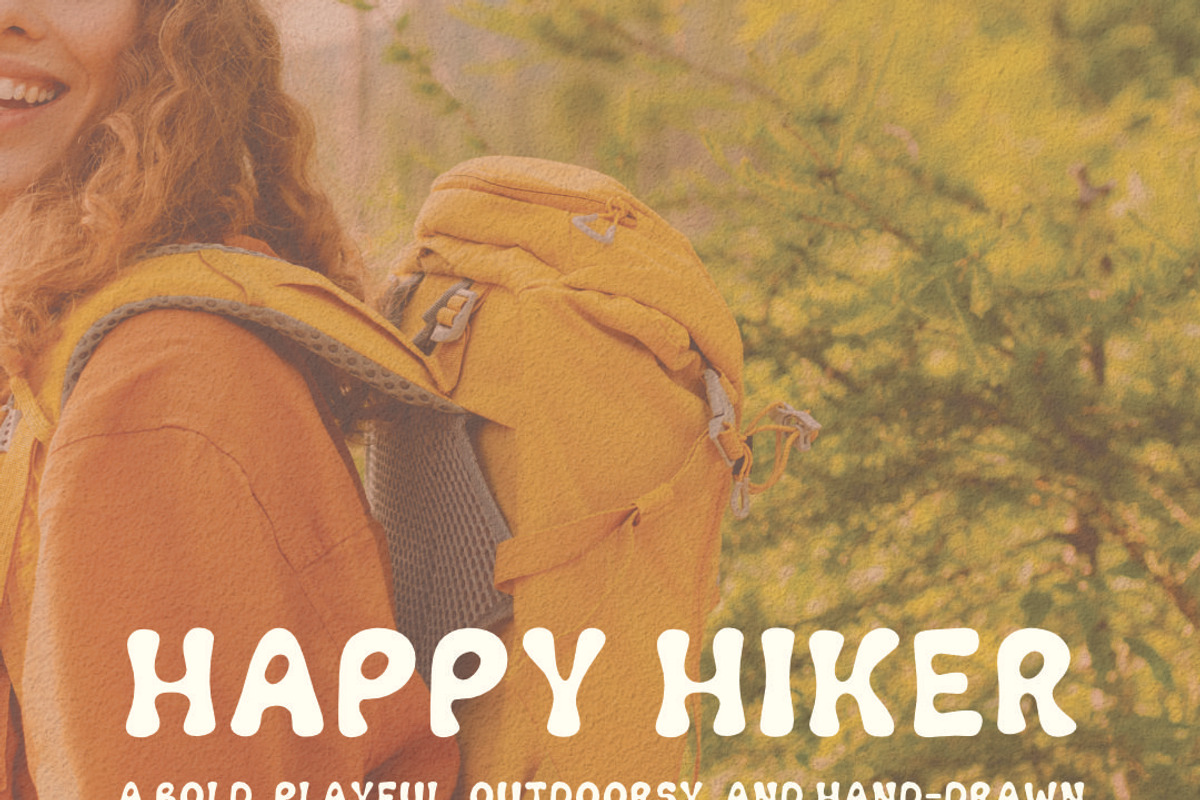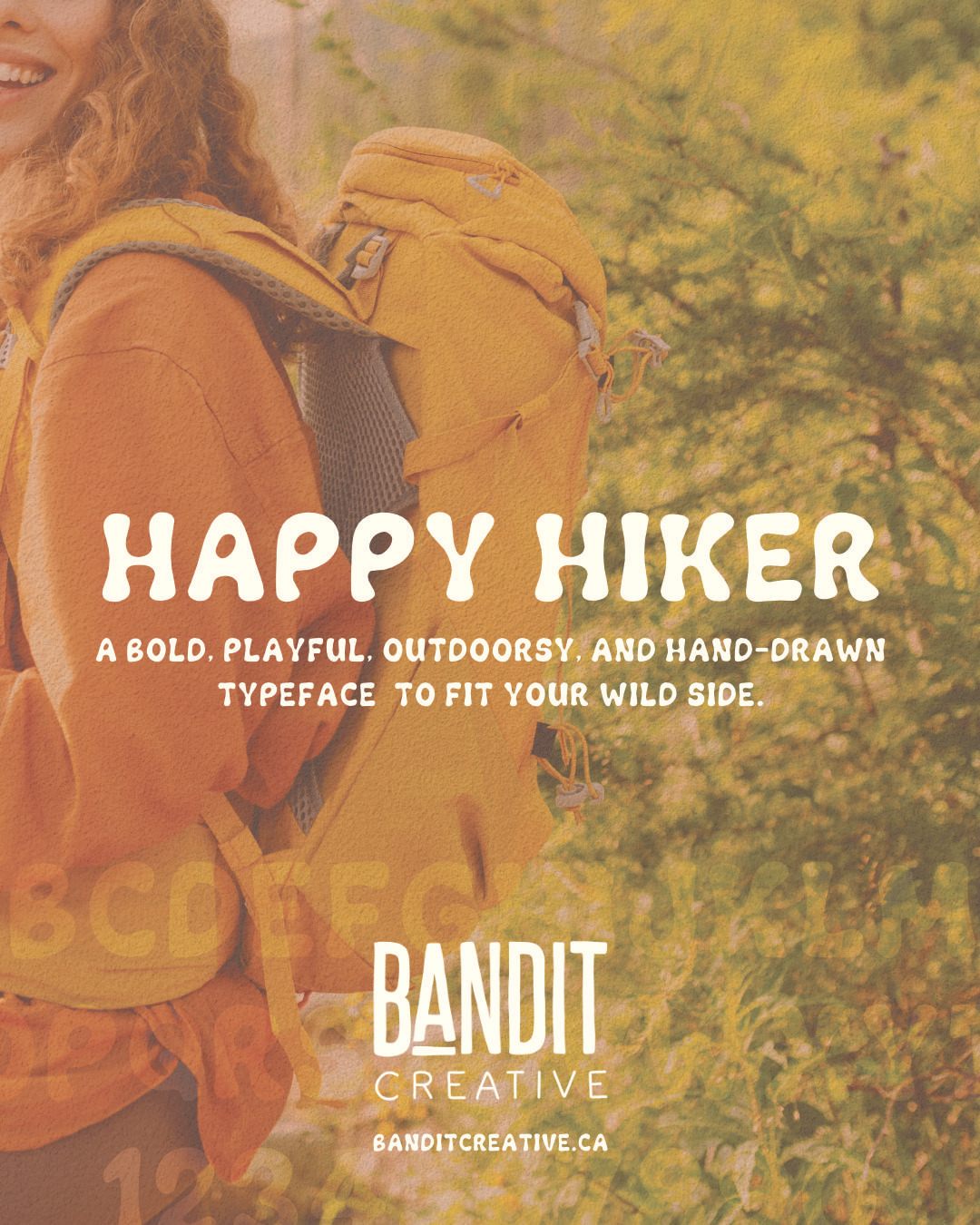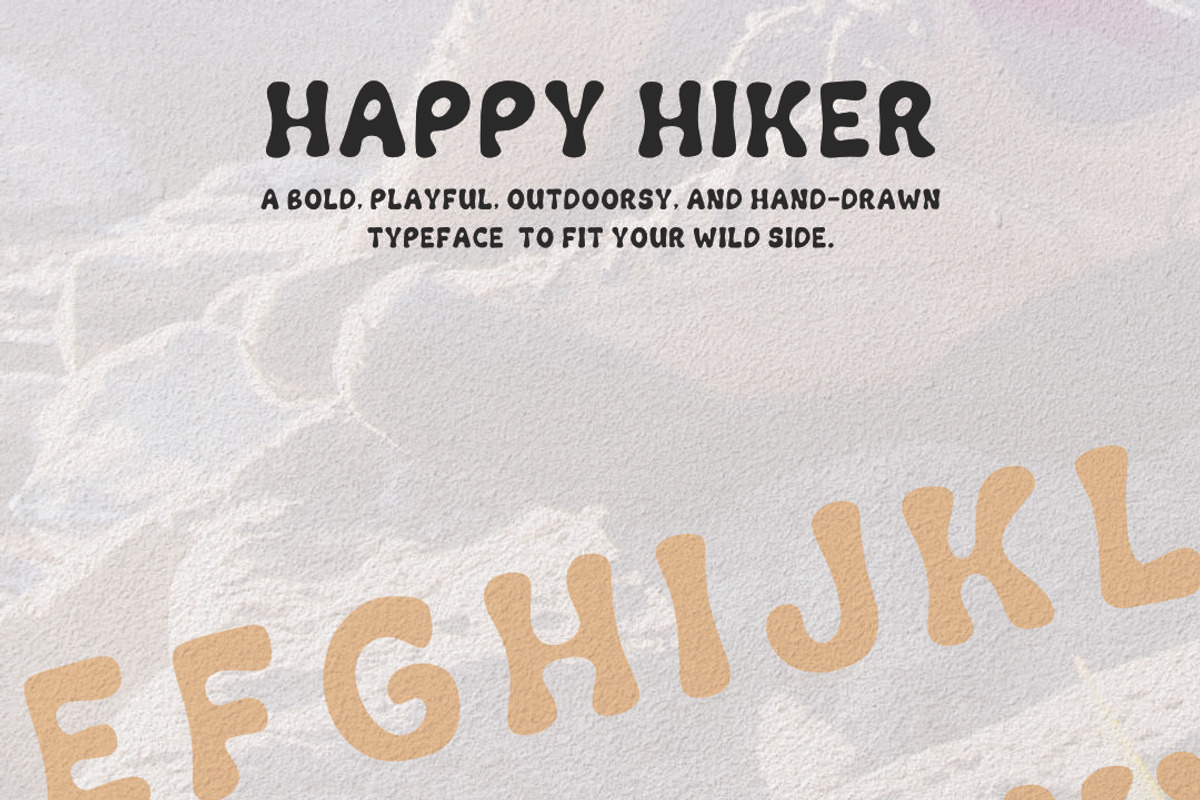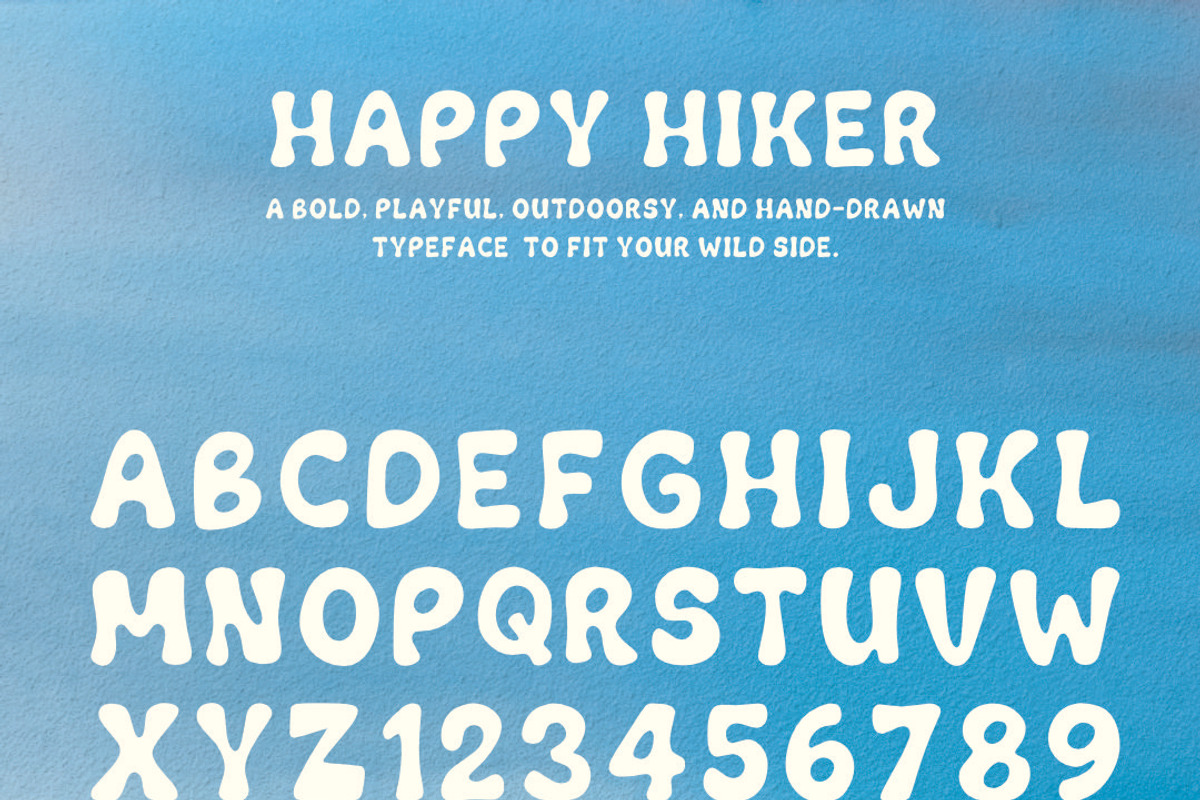
Happy Hiker - An Adventure Font
Happy Hiker is a bold, bubbly, and joy-filled hand-drawn font designed to bring sunshine and personality to your designs. This playful display typeface includes uppercase letters, punctuation, and numbers, all crafted in the signature Bandit Creative style. Perfect for logos, branding, packaging, apparel, and outdoor-inspired projects that need a dose of charm and feel-good energy.